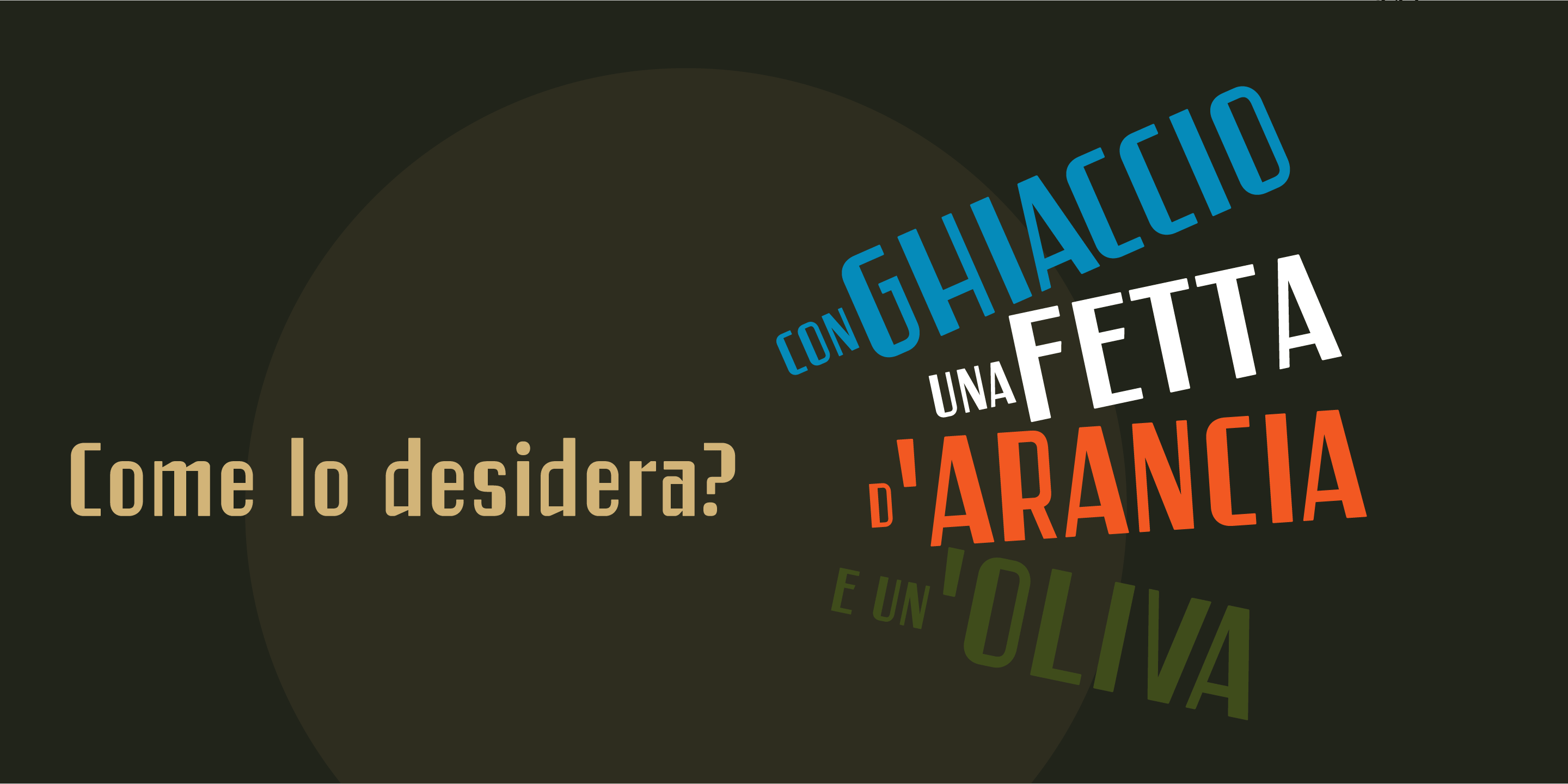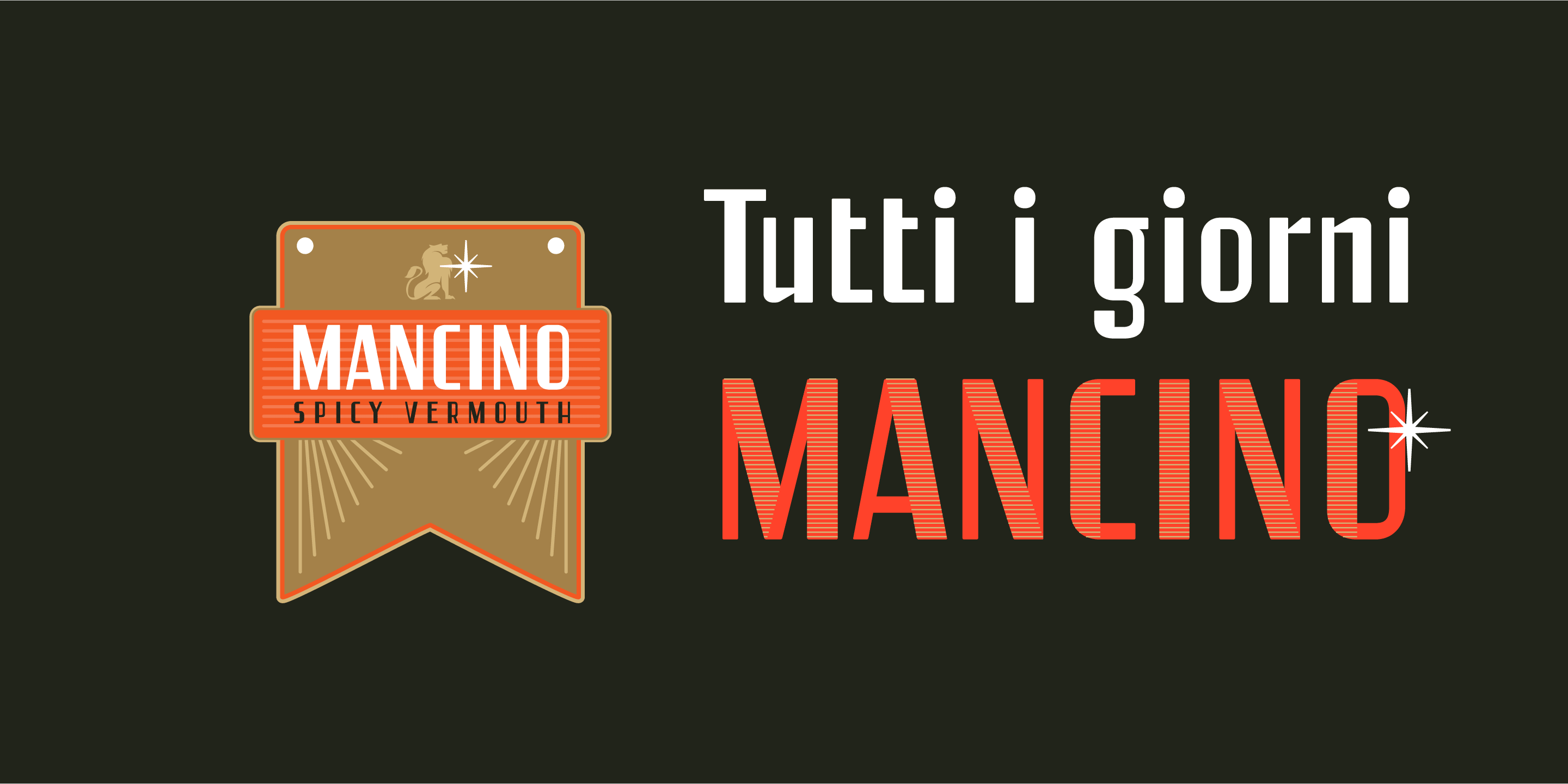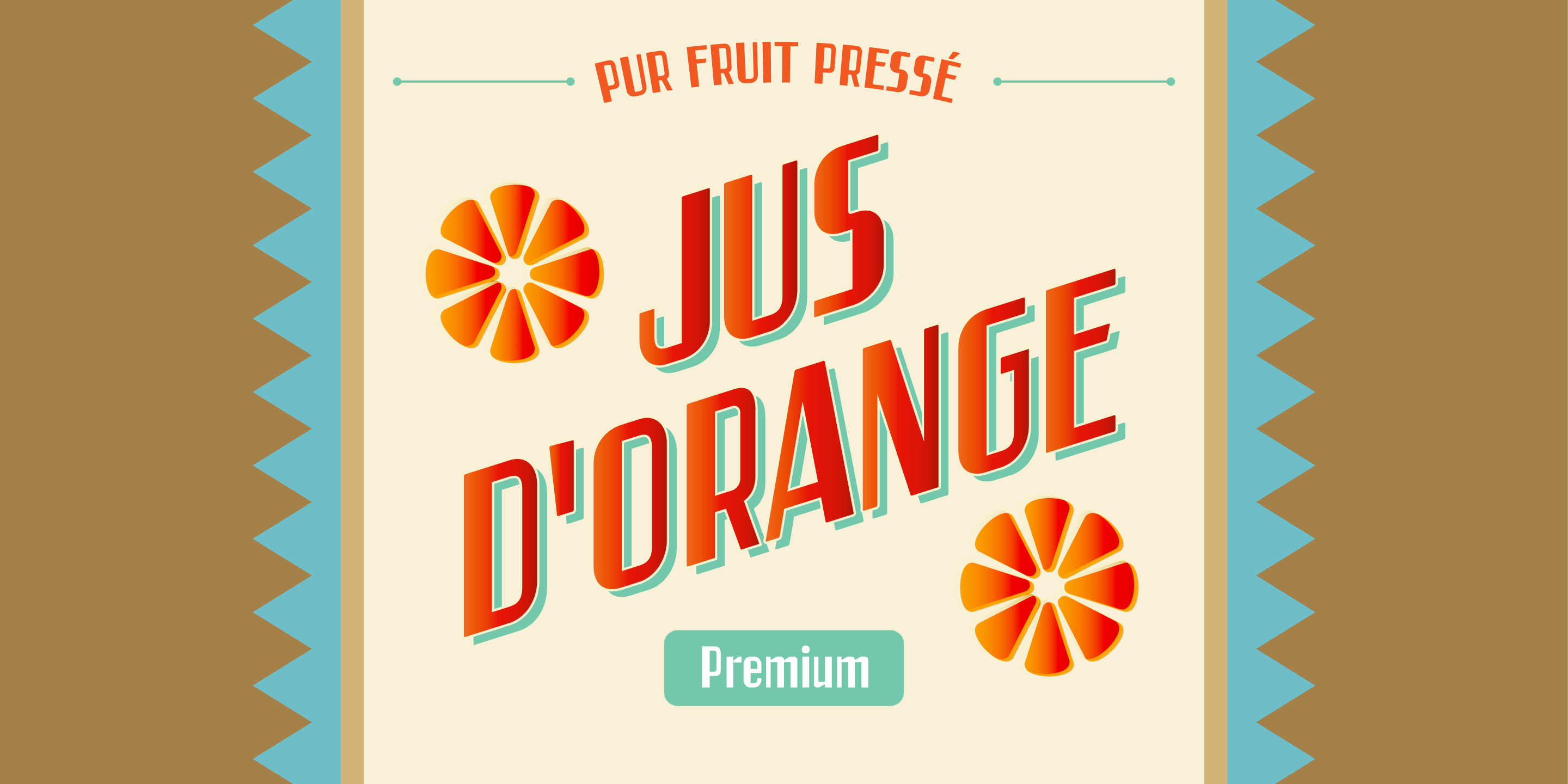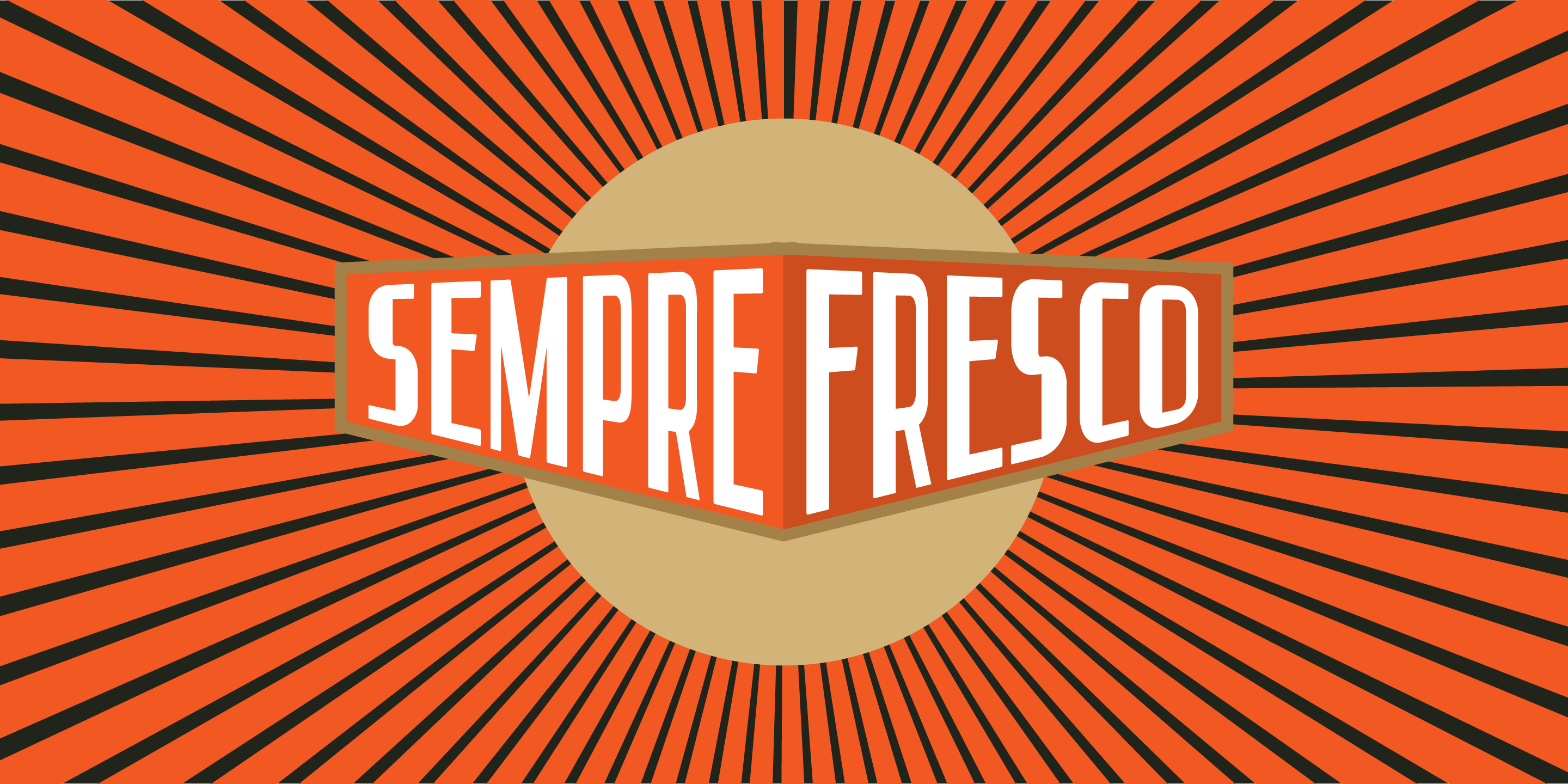
Vermouth
Thick
Thin
Thick Lines
Thick Tipsy
Thin Lines
Thin Tipsy
Regular
Outline
Layered Font Family
Vermouth
Designed by Resistenza Type FoundryVermouth is a new Layered font family inspired by Italian signs of the 60s
You can create awesome colorful display text overlapping some styles.